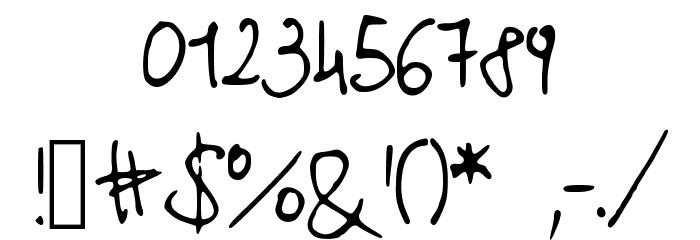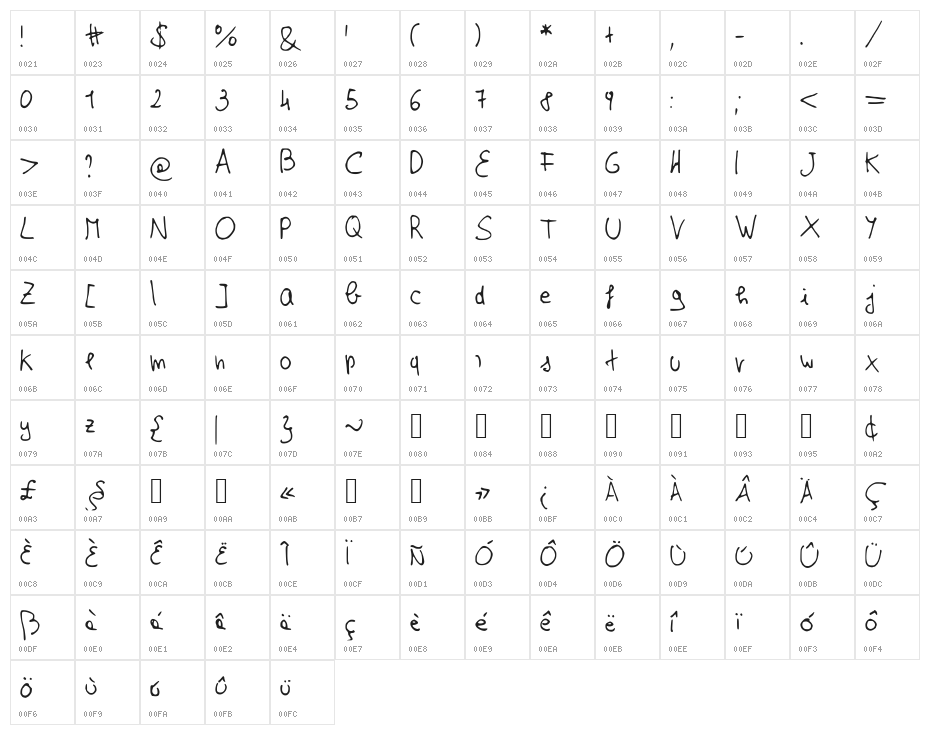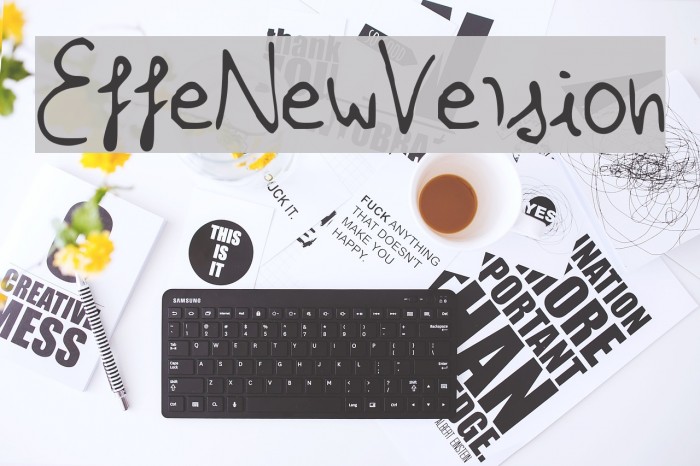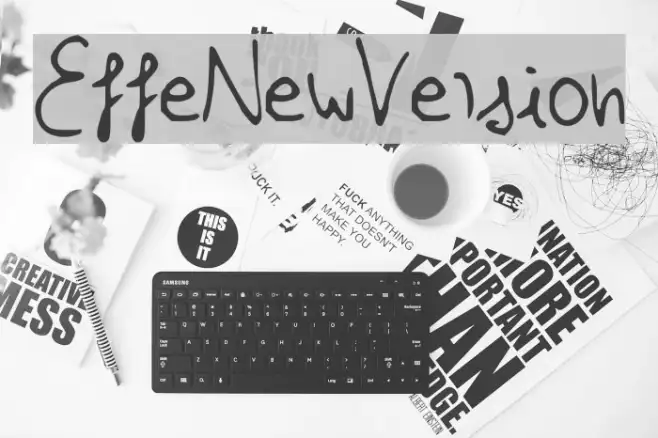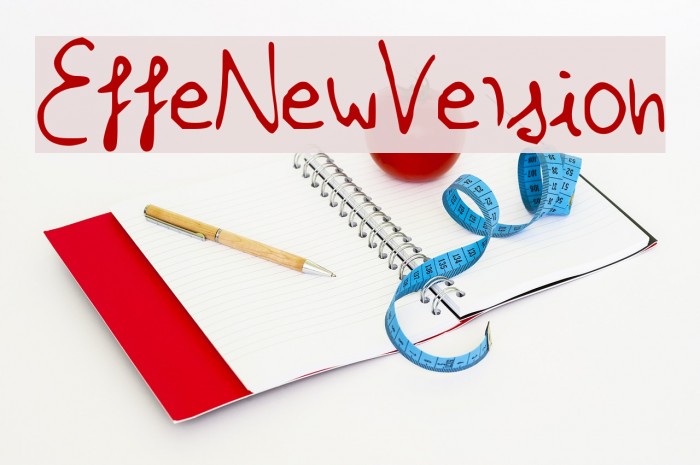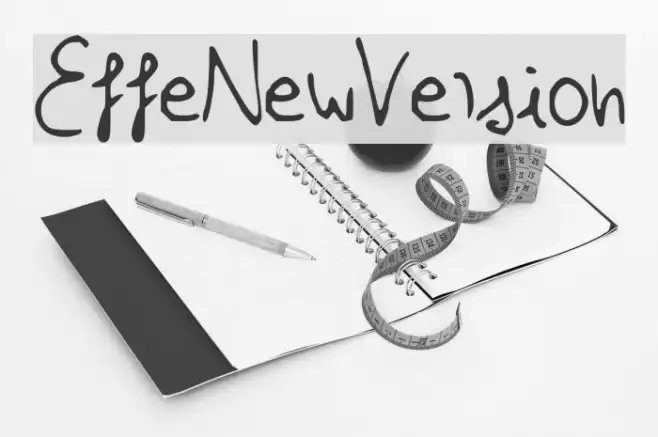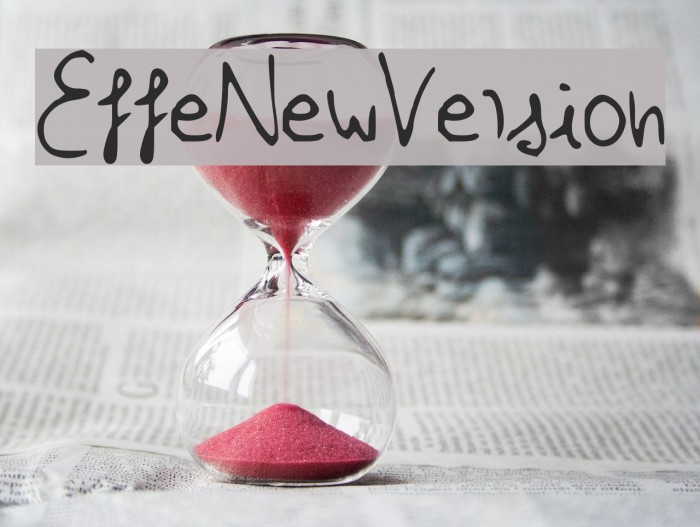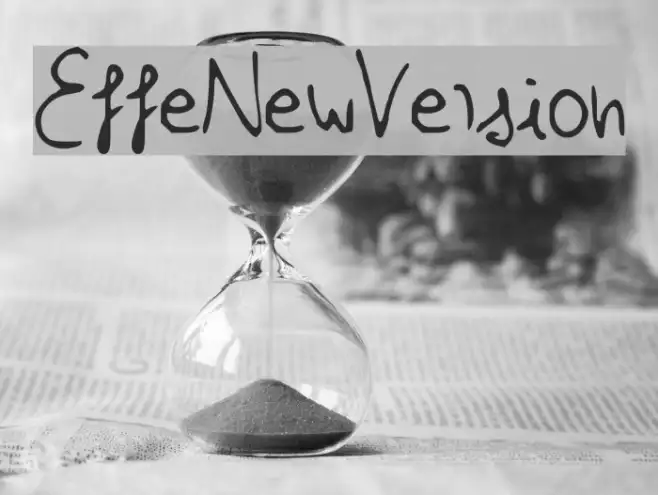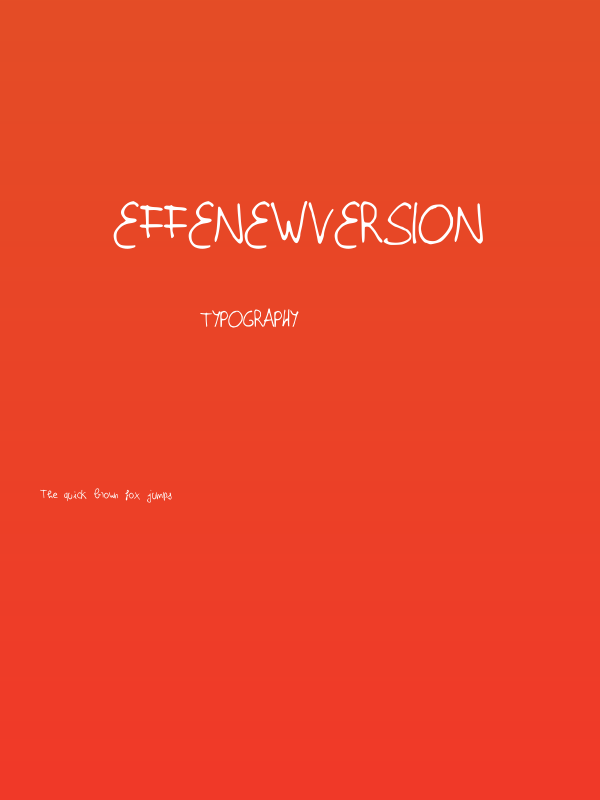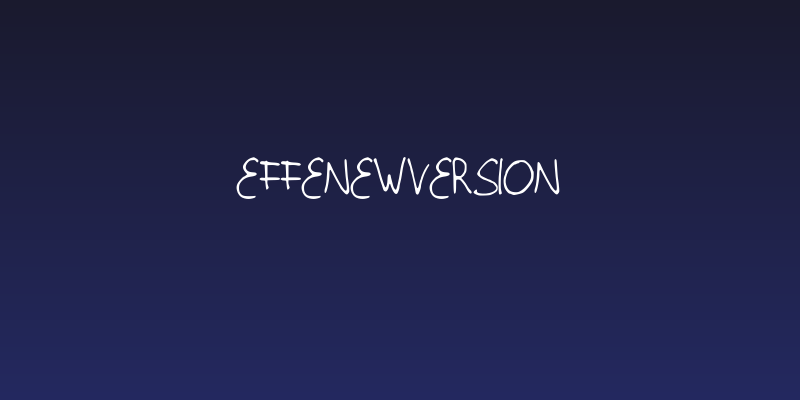
EffeNewVersion Font
EffeNewVersion Description
This font features a playful and casual handwritten style, characterized by its irregular and organic strokes. The letters have a lively and informal appearance, with varying heights and widths that give it a dynamic feel. The uppercase letters are bold and slightly slanted, while the lowercase letters maintain a consistent flow with rounded edges. Numbers and special characters follow the same whimsical design, adding to the font's overall charm. This font is perfect for projects that require a personal touch or a creative flair, making it ideal for invitations, greeting cards, or artistic designs.
| Use Case | Headlines, Artistic designs, Personal projects |
| Proposed Projects | Ideal for invitations, greeting cards, artistic designs, and personal projects. |